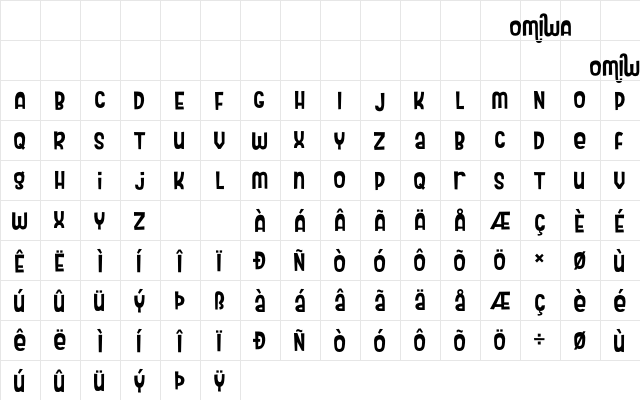
Omiwa Regular
| Designer | Orenari |
Design Context for Omiwa Typeface
Omiwa takes a measured approach to typography — its balanced proportions and neutral character make it a reliable workhorse for both digital and print work.